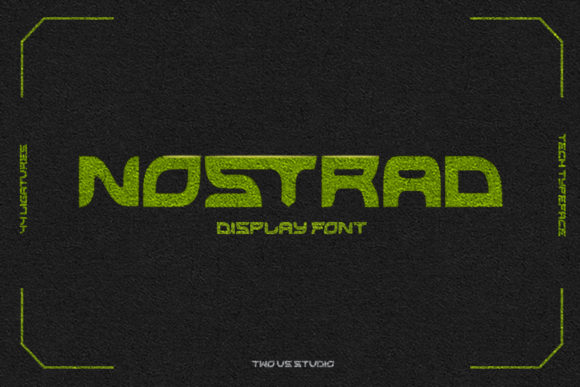
Journey to the future with NOSTRAD, the futuristic display typeface that will transform your designs. Inspired by the vastness of space and the promise of the unknown, NOSTRAD captivates with its bold lines and cosmic elegance.
Feel the exhilarating rush of speed as you navigate through your designs with NOSTRAD's electrifying energy. Its sharp edges cut through the ordinary, leaving a trail of uniqueness in its wake. Unleash your creativity and let NOSTRAD take you on an extraordinary journey of expression.
Embrace the power of innovation with NOSTRAD. Its cutting-edge design pushes the boundaries of creativity, allowing you to craft designs that stand out in a digital universe. NOSTRAD is the perfect companion for modern websites, demanding attention and leaving a lasting impression.
Immerse yourself in the boundless potential of NOSTRAD. With its captivating glyphs and dynamic characters, NOSTRAD empowers you to craft designs that speak to the soul. Its versatility shines across a wide range of applications, from sleek logos to dynamic headlines, captivating posters to immersive digital experiences.
Step into the future with NOSTRAD and let your designs radiate with audacity. Its cosmic glow will illuminate your creations, propelling them to new heights of innovation. Embrace the infinite possibilities and leave an enduring legacy of creativity with NOSTRAD, the font that redefines the boundaries of design.